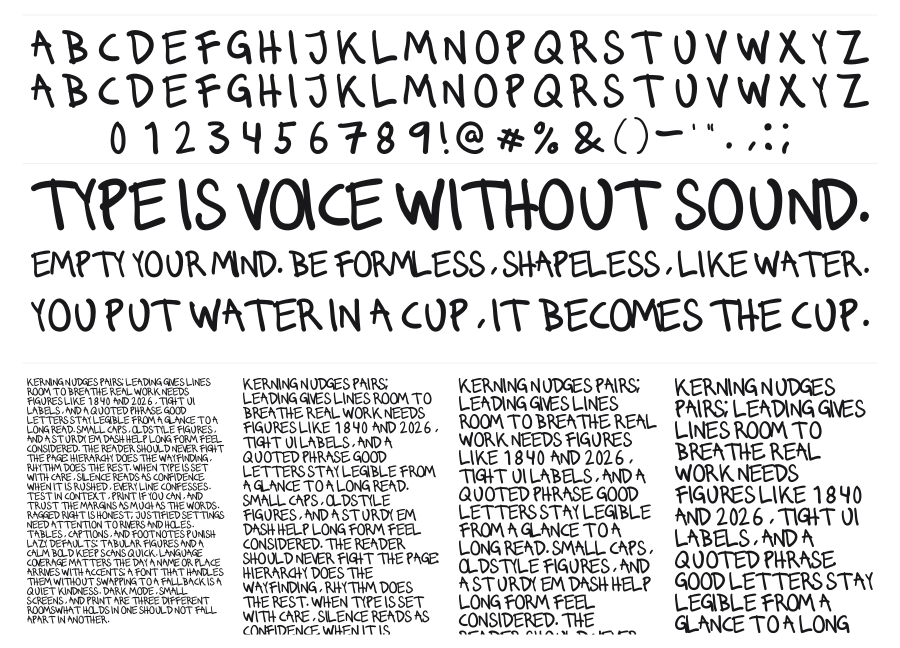
Runkmuskel
Runkmuskel is a bold, uppercase handwritten face by Anton Bohlin with the thick, uneven strokes of a wide marker pressed hard against paper. The letters carry a loose, playful energy that feels spontaneous rather than designed, with enough weight to hold their own in headlines, posters, and casual branding. It's informal without being sloppy, landing in that sweet spot where hand-lettered charm meets real readability.